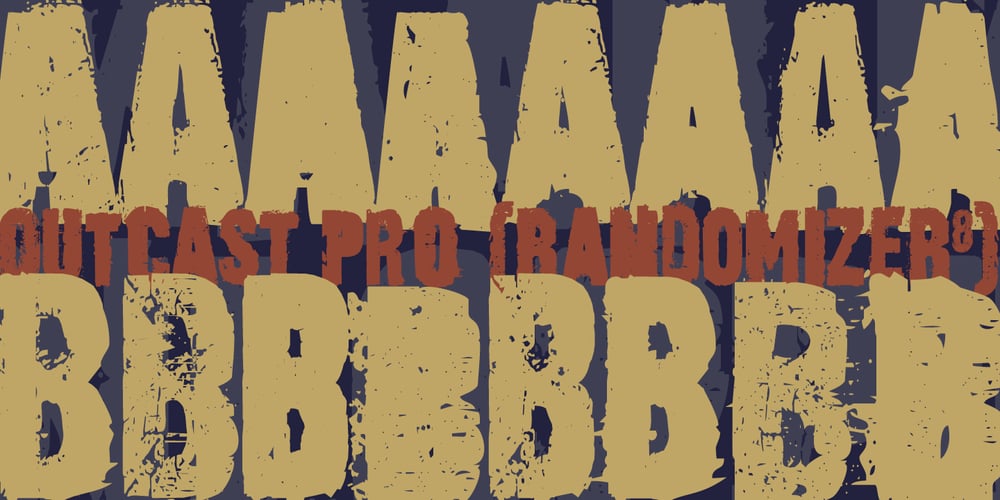
Outcast Font Family was designed by Patrick Griffin and published by Canada Type. Outcast contains 5 styles and family package options. Outcast puts the whole grunge font problem to rest by eliminating repetition. Here we have eight variations on each character (4 all cap fonts), so there is no more need to use the same character twice in any display setting. You have the main interchangeable fonts, then you have Outcast Pro — an amalgamation of all four fonts, synched together in one file and programmed with a contextual alternates feature that randomizes setting on the fly. Language support includes Western, Central and Eastern European character sets, as well as Baltic, Esperanto, Maltese, Turkish, and Celtic/Welsh languages. For those end-of-days shirts and placards everyone is eager to design now. Because true grunge never repeats itself.